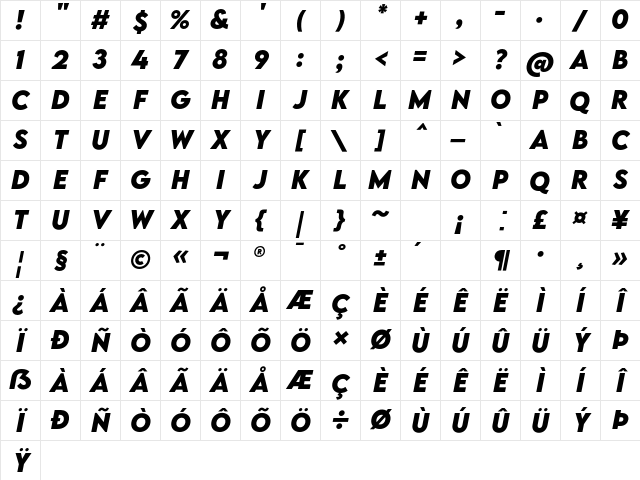
Complete LEMON MILK Bold Italic glyph index. Displaying only characters natively supported by LEMON MILK Bold Italic font.
LEMON MILK is a composed and adaptable typeface that performs quietly and consistently across a wide range of design contexts. The slanted form adds forward momentum and visual energy. Its bold stroke weight gives it real presence on the page.
Pro Tip: Use LEMON MILK for emphasis, pull quotes, and subheadings where its slanted energy can add rhythm to the layout.